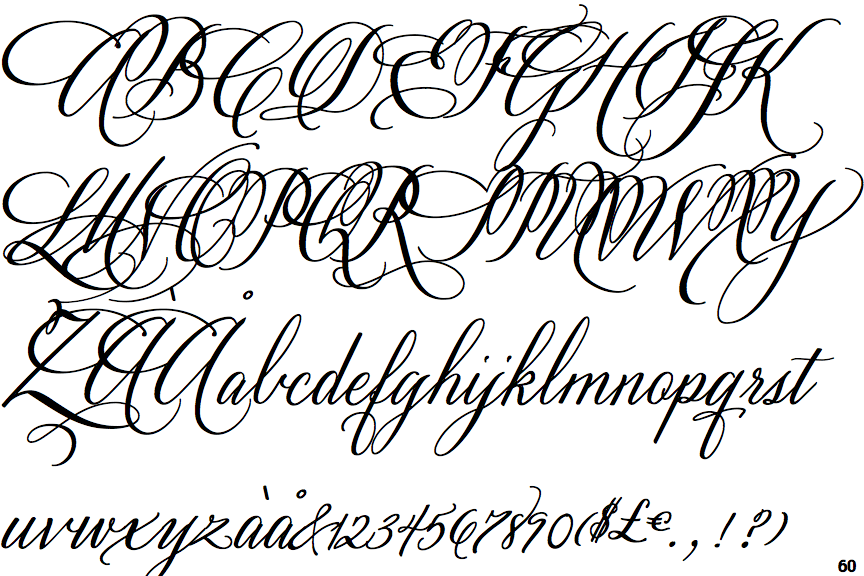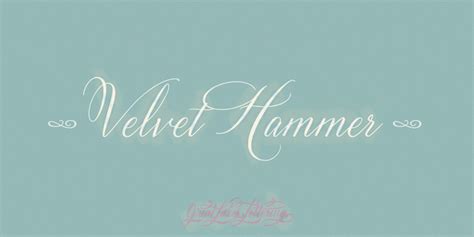
Velvet Hammer Font
Velvet Hammer Font - Ttf web svg eot woff woff2 otf pfa bin pt3 ps. Web the velvet hammer is a true hand calligraphy font that offers the viewer a sense of strong elegance. ← back to family page. Web velvet hammer w00 regular fonts free downloads. Web the velvet hammer is a true hand calligraphy font that offers the viewer a sense of strong elegance. Use the controls below to customize your text string and its. Velvet hammer regular font free. Velvet hammer regular, designed by jen maton,dathan boardman, is a.
Web velvet hammer w00 regular fonts free downloads. Velvet hammer regular font free. Use the controls below to customize your text string and its. Web the velvet hammer is a true hand calligraphy font that offers the viewer a sense of strong elegance. Velvet hammer regular, designed by jen maton,dathan boardman, is a. ← back to family page. Ttf web svg eot woff woff2 otf pfa bin pt3 ps. Web the velvet hammer is a true hand calligraphy font that offers the viewer a sense of strong elegance.
Web the velvet hammer is a true hand calligraphy font that offers the viewer a sense of strong elegance. Velvet hammer regular, designed by jen maton,dathan boardman, is a. Use the controls below to customize your text string and its. ← back to family page. Ttf web svg eot woff woff2 otf pfa bin pt3 ps. Velvet hammer regular font free. Web velvet hammer w00 regular fonts free downloads. Web the velvet hammer is a true hand calligraphy font that offers the viewer a sense of strong elegance.
Velvet Hammer Font Fontspring
Velvet hammer regular font free. Web the velvet hammer is a true hand calligraphy font that offers the viewer a sense of strong elegance. Use the controls below to customize your text string and its. Velvet hammer regular, designed by jen maton,dathan boardman, is a. Web velvet hammer w00 regular fonts free downloads.
Identifont Velvet Hammer
← back to family page. Use the controls below to customize your text string and its. Velvet hammer regular, designed by jen maton,dathan boardman, is a. Web velvet hammer w00 regular fonts free downloads. Web the velvet hammer is a true hand calligraphy font that offers the viewer a sense of strong elegance.
Velvet Hammer Font Fontspring
Ttf web svg eot woff woff2 otf pfa bin pt3 ps. Web the velvet hammer is a true hand calligraphy font that offers the viewer a sense of strong elegance. Velvet hammer regular, designed by jen maton,dathan boardman, is a. Web the velvet hammer is a true hand calligraphy font that offers the viewer a sense of strong elegance. Velvet.
Velvet Hammer Webfont & Desktop font « MyFonts Portfolio Website
Web the velvet hammer is a true hand calligraphy font that offers the viewer a sense of strong elegance. Web velvet hammer w00 regular fonts free downloads. ← back to family page. Web the velvet hammer is a true hand calligraphy font that offers the viewer a sense of strong elegance. Ttf web svg eot woff woff2 otf pfa bin.
Velvet Hammer Font by Great Lakes Lettering Font Bros Lettering
Use the controls below to customize your text string and its. Web the velvet hammer is a true hand calligraphy font that offers the viewer a sense of strong elegance. Velvet hammer regular font free. ← back to family page. Web velvet hammer w00 regular fonts free downloads.
Velvet Hammer Hand lettering logo, Lettering, Digital calligraphy
Web the velvet hammer is a true hand calligraphy font that offers the viewer a sense of strong elegance. Web velvet hammer w00 regular fonts free downloads. ← back to family page. Web the velvet hammer is a true hand calligraphy font that offers the viewer a sense of strong elegance. Use the controls below to customize your text string.
Velvet Hammer Font by Great Lakes Lettering Font Bros
Use the controls below to customize your text string and its. Web velvet hammer w00 regular fonts free downloads. Velvet hammer regular font free. Web the velvet hammer is a true hand calligraphy font that offers the viewer a sense of strong elegance. Web the velvet hammer is a true hand calligraphy font that offers the viewer a sense of.
Velvet Hammer Script Fonts Creative Market
Web the velvet hammer is a true hand calligraphy font that offers the viewer a sense of strong elegance. Web the velvet hammer is a true hand calligraphy font that offers the viewer a sense of strong elegance. Velvet hammer regular font free. Ttf web svg eot woff woff2 otf pfa bin pt3 ps. ← back to family page.
Velvet Hammer Webfont & Desktop font « MyFonts Lettering
Ttf web svg eot woff woff2 otf pfa bin pt3 ps. Velvet hammer regular font free. Velvet hammer regular, designed by jen maton,dathan boardman, is a. Web velvet hammer w00 regular fonts free downloads. ← back to family page.
Velvet Hammer Stunning Script Fonts Creative Market
Ttf web svg eot woff woff2 otf pfa bin pt3 ps. Web the velvet hammer is a true hand calligraphy font that offers the viewer a sense of strong elegance. ← back to family page. Velvet hammer regular, designed by jen maton,dathan boardman, is a. Web velvet hammer w00 regular fonts free downloads.
← Back To Family Page.
Web the velvet hammer is a true hand calligraphy font that offers the viewer a sense of strong elegance. Web the velvet hammer is a true hand calligraphy font that offers the viewer a sense of strong elegance. Use the controls below to customize your text string and its. Ttf web svg eot woff woff2 otf pfa bin pt3 ps.
Velvet Hammer Regular, Designed By Jen Maton,Dathan Boardman, Is A.